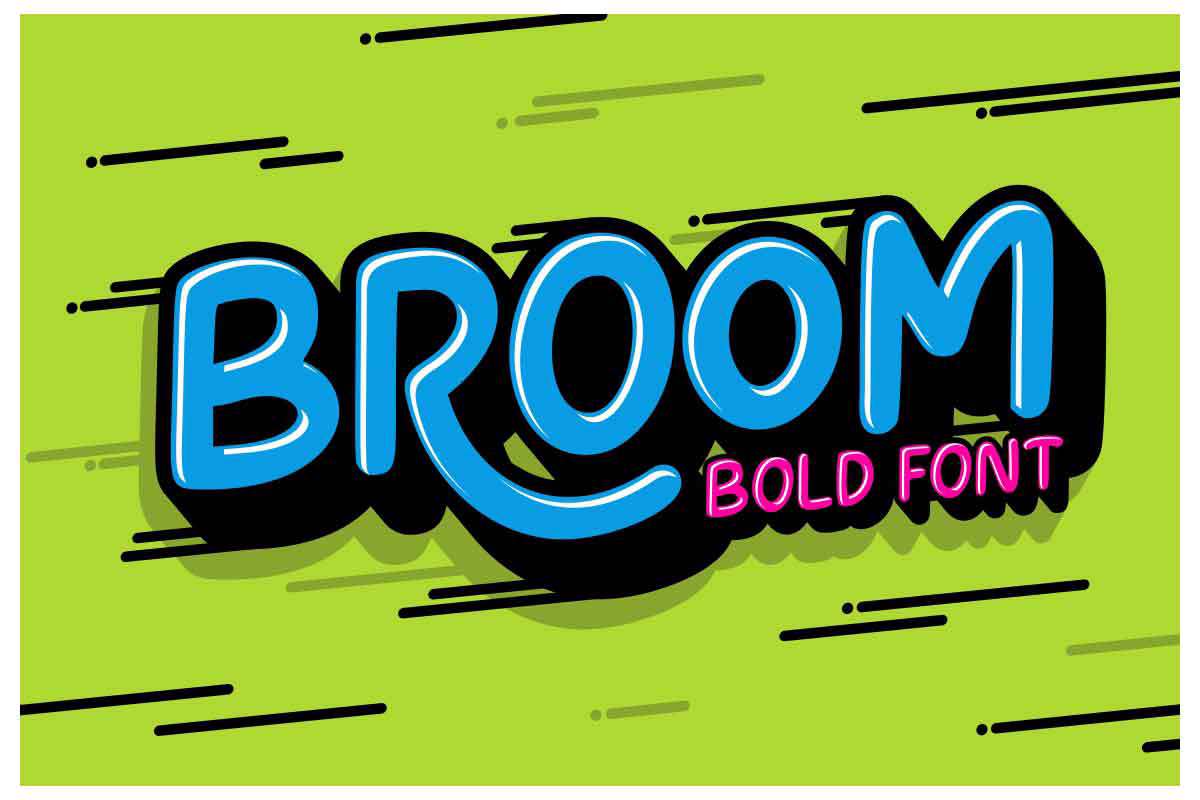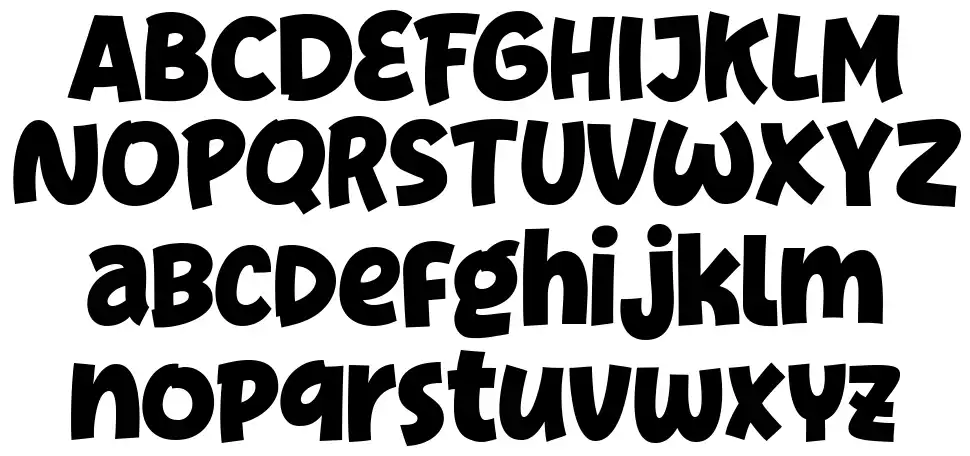
Broomstick Font . The broomstick font has been downloaded 323 times. The font subfamily is regular. Broomstick is the perfect font for all your fun designs. Click the download button to download the. Add this font to your. Broomstick is a relaxed and flowing handwritten font. Every font is free to download! Incredibly versatile, this font fits a wide pool of designs, elevating them to the highest levels. Every font is free to download! Broom à € by kong font. Click to find the best 7 free fonts in the broom style. Click now to create a custom image with. Download and install the broomstick font by arendxfont. Design amazing projects with broomstick typeface, learn about the full character set of broomstick, try online font to see letters,. Free download of broomstick font.
Incredibly versatile, this font fits a wide pool of designs, elevating them to the highest levels. Click the download button to download the. Broom à € by kong font. Click to find the best 7 free fonts in the broom style. Every font is free to download! Design amazing projects with broomstick typeface, learn about the full character set of broomstick, try online font to see letters,. Click now to create a custom image with. Broomstick is the perfect font for all your fun designs. Add this font to your.
Broomstick Font Broomstick is a relaxed and flowing handwritten font. Every font is free to download! Broom à € by kong font. The font subfamily is regular. Click the download button to download the. Click now to create a custom image with. Download and install the broomstick font by arendxfont. Broomstick is a relaxed and flowing handwritten font. Click to find the best 7 free fonts in the broom style. Design amazing projects with broomstick typeface, learn about the full character set of broomstick, try online font to see letters,. Click to find the best 1 free fonts in the broomstick style. The broomstick font has been downloaded 323 times. Incredibly versatile, this font fits a wide pool of designs, elevating them to the highest levels. Add this font to your. Free download of broomstick font. Every font is free to download!